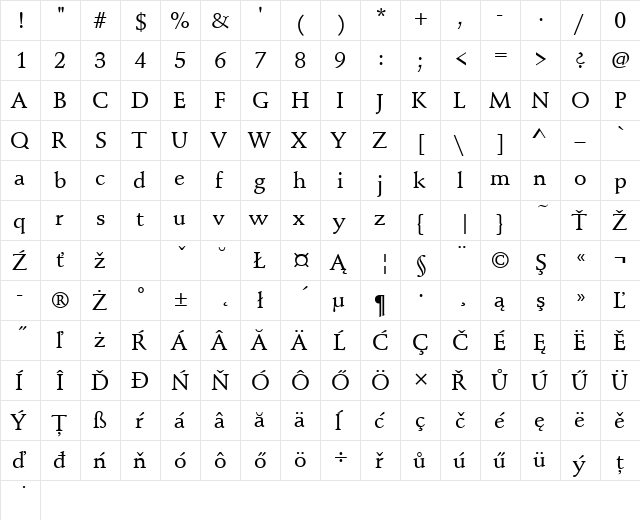
SchneidlerMedTEEMed Regular
Design Context for SchneidlerMedTEEMed Typeface
SchneidlerMedTEEMed offers clean, dependable letterforms without strong stylistic allegiance, making it a practical choice for designers who need flexibility.